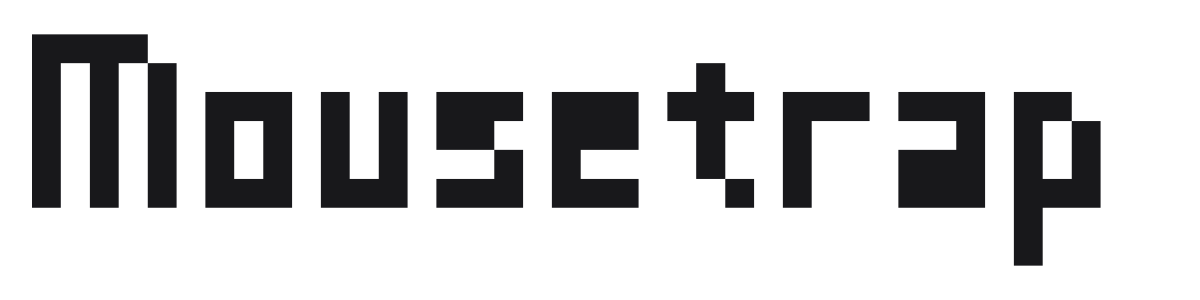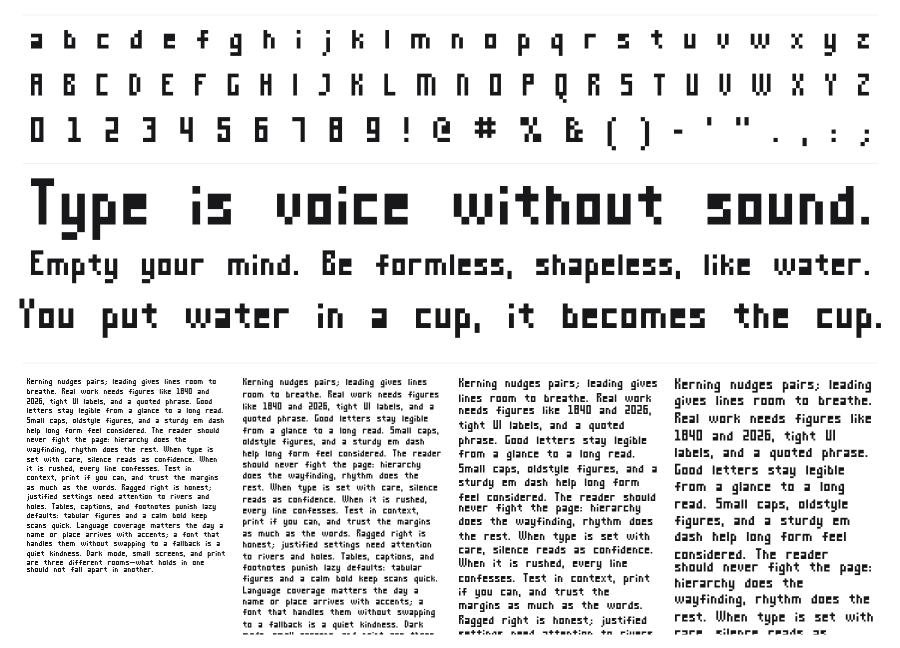
Mousetrap
Mousetrap is a bold bitmap font built entirely on a square pixel grid, evoking the chunky displays of 8-bit arcade games and early home computers. Every stroke is perfectly rectilinear with no curves, giving it a dense, almost aggressive weight that grabs attention at headline sizes. It fits naturally in gaming interfaces, retro-themed branding, and anywhere that lo-fi digital nostalgia is part of the message.